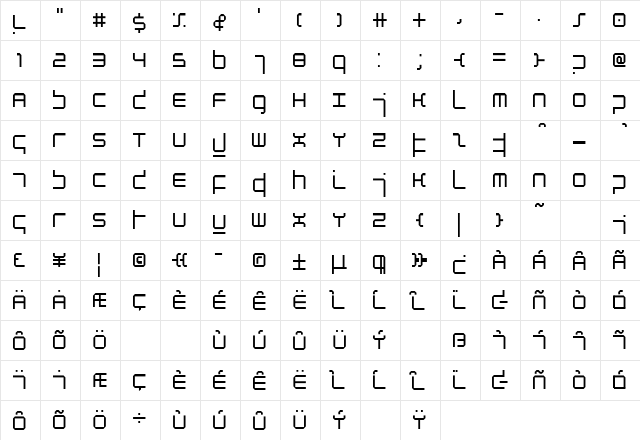
Atmosphere Neue Light
Design Context for Atmosphere Neue Typeface
Atmosphere Neue is a composed and adaptable typeface that performs quietly and consistently across a wide range of design contexts. Its slender proportions lend an understated elegance to any composition.